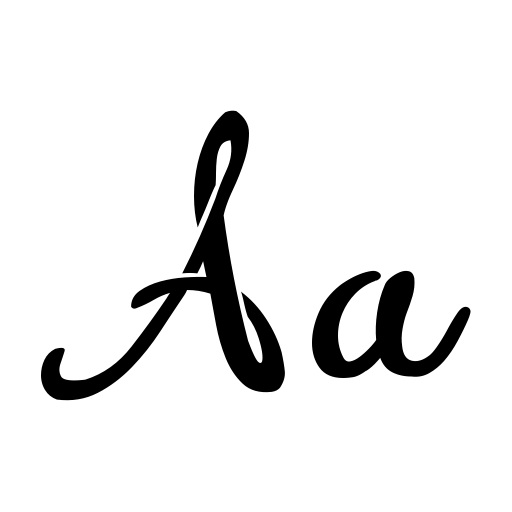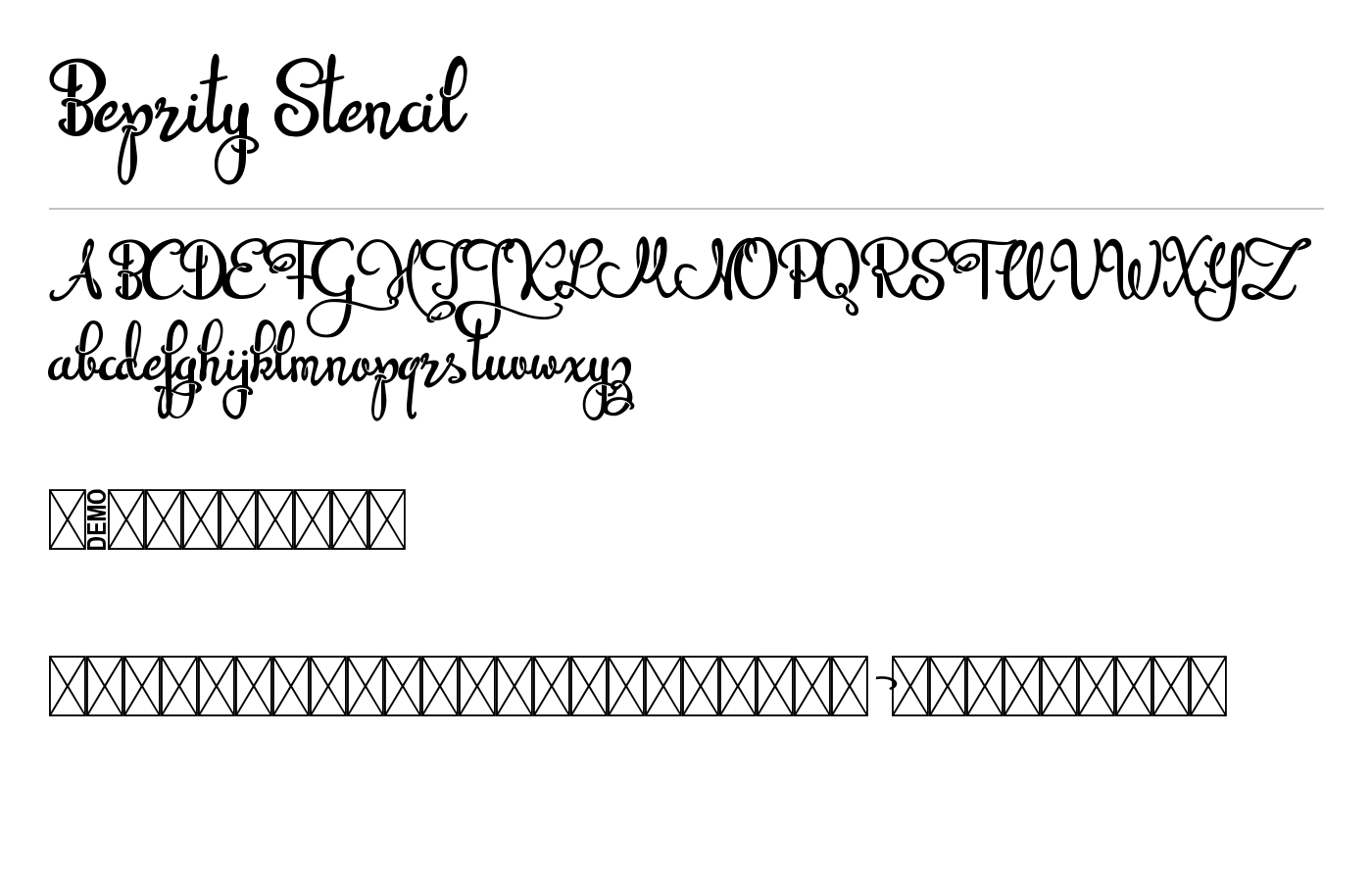
Beprity Stencil is a decorative script font with a playful and elegant flair, featuring intricate, looping letterforms that capture a handcrafted, vintage charm. Its unique stencil cuts within the swirly strokes add a modern twist, making it ideal for creative branding, invitations, and artistic headlines where a stylish and personal touch is desired. This font shines in contexts that benefit from a distinctive, eye-catching look that balances sophistication with friendliness.
Beprity Stencil Font
About Beprity Stencil Font
| Font family | Beprity Stencil Font |
| Designer | Eva Barabasne Olasz |